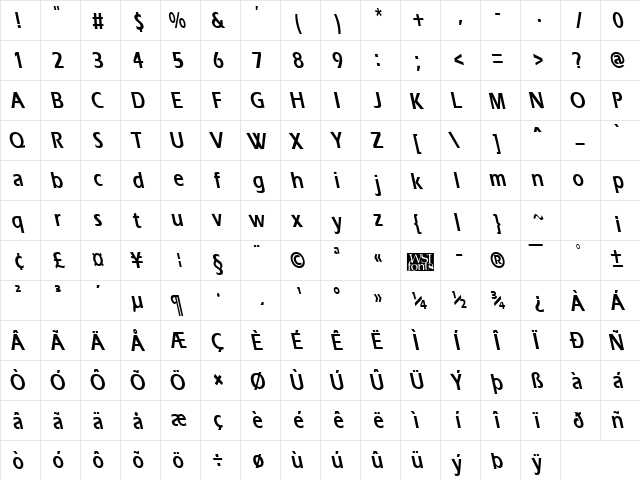
ErgoeCondensedBS Bold Font Preview
Design Context for ErgoeCondensedBS Typeface
ErgoeCondensedBS takes a measured approach to typography — its balanced proportions and neutral character make it a reliable workhorse for both digital and print work. The heavy weight commands attention and anchors typographic hierarchies. The condensed width makes it efficient for tight spaces without sacrificing legibility.